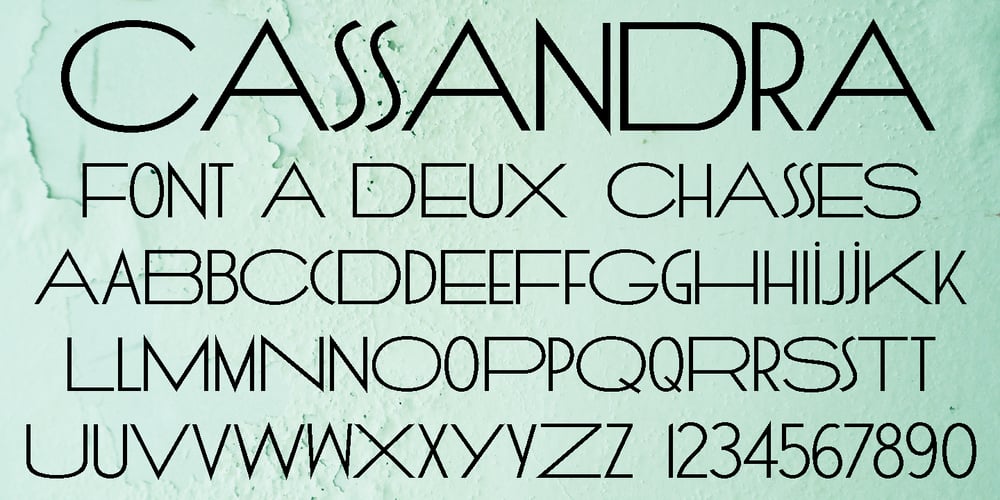
Cassandra
Cassandra font
Cassandra Font Family was designed by Gert Wiescher and published by Wiescher Design. Cassandra contains 5 styles and family package options. Cassandra has two kinds of letters, wide Capitals on the (shift) capitals and narrow ones on the (no shift) lowercase. You can match them as you like. Take one narrow S and a wide one or two wide ones, whatever turns you on. It will almost always look good. Cassandra is my “bow” to Adolphe Mouron Cassandre. Yours sincerely mixing things up for you Gert Wiescher